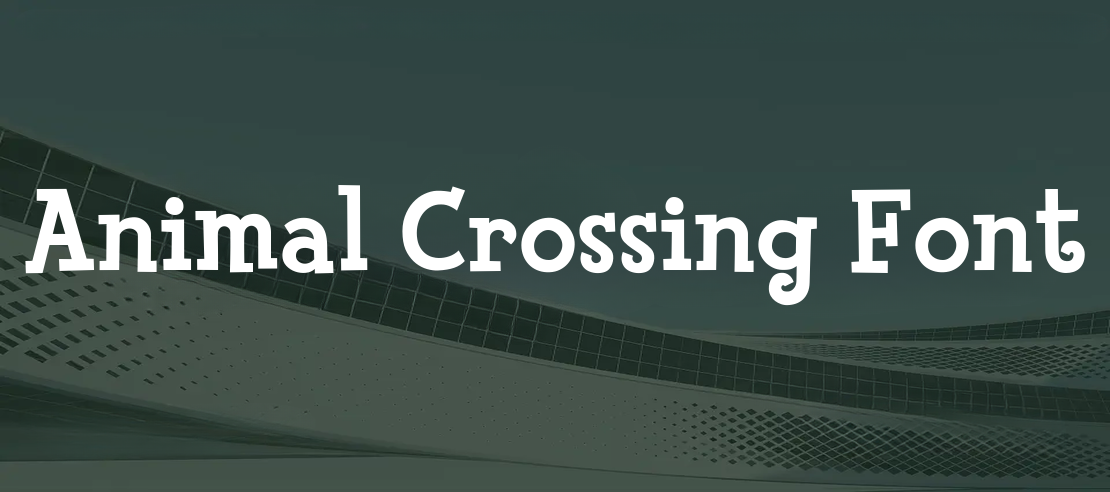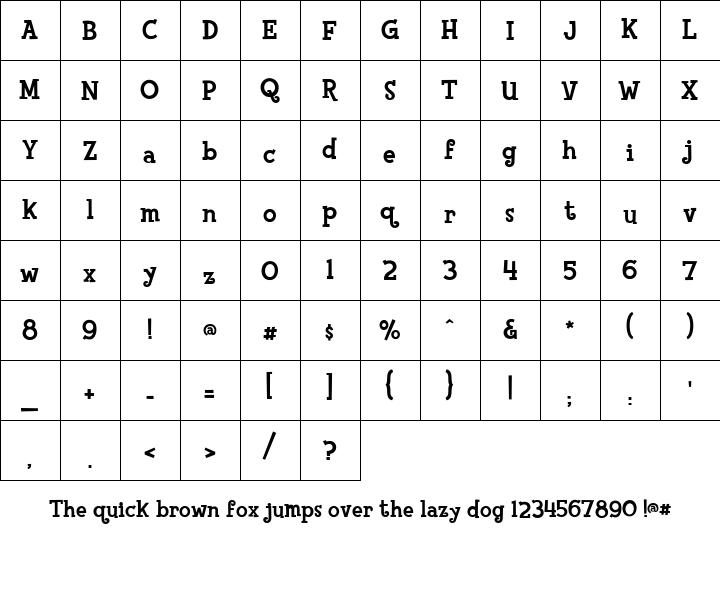
Let’s introduce another gaming font that is a member of the Fancy font family named Animal Crossing Font. This typeface was utilized in the title of the famous game name Animal Crossing a public simulation game that was created by Nintendo. Fink Heavy font was used to create this font.
It has bold and immature characters that are specially designed for creative and fancy designs. There are some fonts that are similar to this. You can use this font instead of all these fonts. But, to our research, this font has more similarities with rocky font, than any other text style.
Designer of Animal Crossing Font
This fancy and creative font style is designed by a designer named Ed Roth. He was a well-reputed American typographer, Artist, Illustrator, custom car designer, cartoonist, and pinstriper.
He has designed and collected many famous typefaces that increased his popularity in the whole world. While creating this font style the main key feature he focuses on is creativity that will suit perfectly for designing purposes and display use.
This font style is comprised of a single style. This style is designed with the following features that include lowercase, uppercase letters, numbers, symbols, more than 410 glyphs, special characters, and multi-language support.
| Style | comic |
| Designer | Ed Roth |
It can support greater than 44 languages.
What type of font is Animal Crossing font?
This typeface is a type of fancy font family. This creative and fancy typeface is designed by Ed Roth.
What font is closest to Animal Crossing Font?
Some of the typographies are really similar to this font texture. But, death font has the utmost similarities to this font. So, feel free to use this typeface as an alternative to this font style.